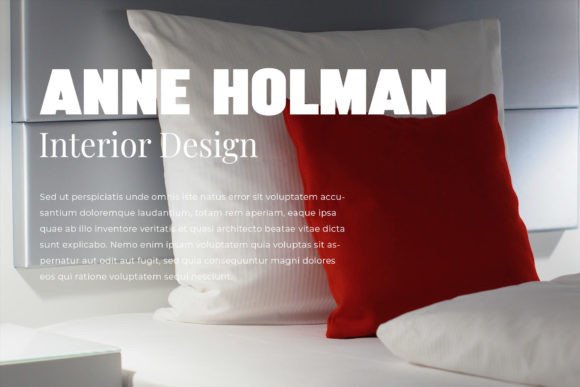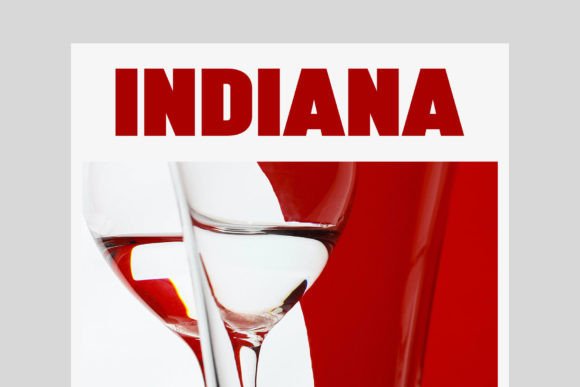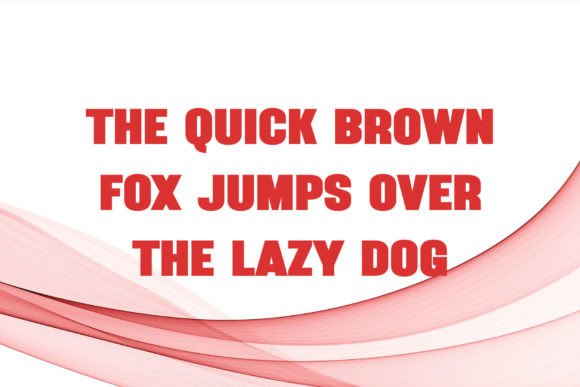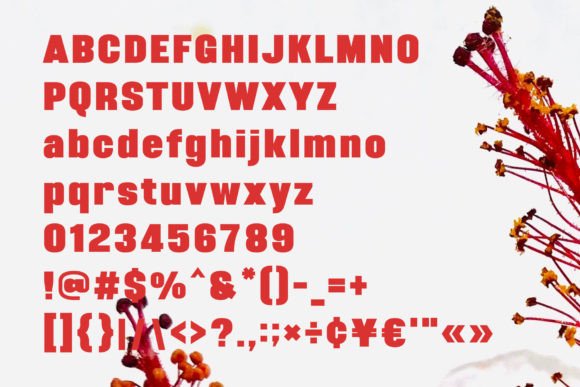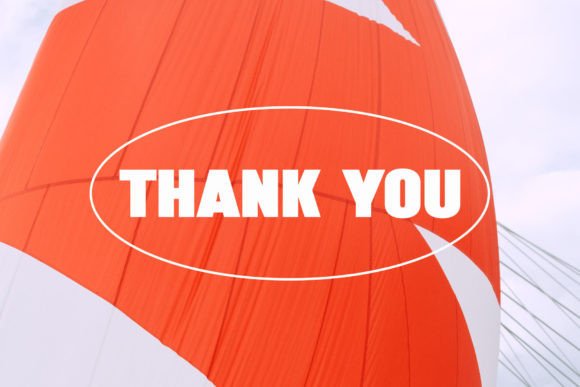
Introduction to Miland Font
Miland is a modern and simple font, best used as a display for headings, logos, branding, magazines, product packaging, and invitations.
Miland come with clean lines and smooth curves giving any project an extra touch of class .
Key Features of Miland Font
Miland Font offers exceptional quality and versatility, making it a valuable addition to your design toolkit. Whether you’re creating for personal projects or commercial use, Miland Font delivers professional results.